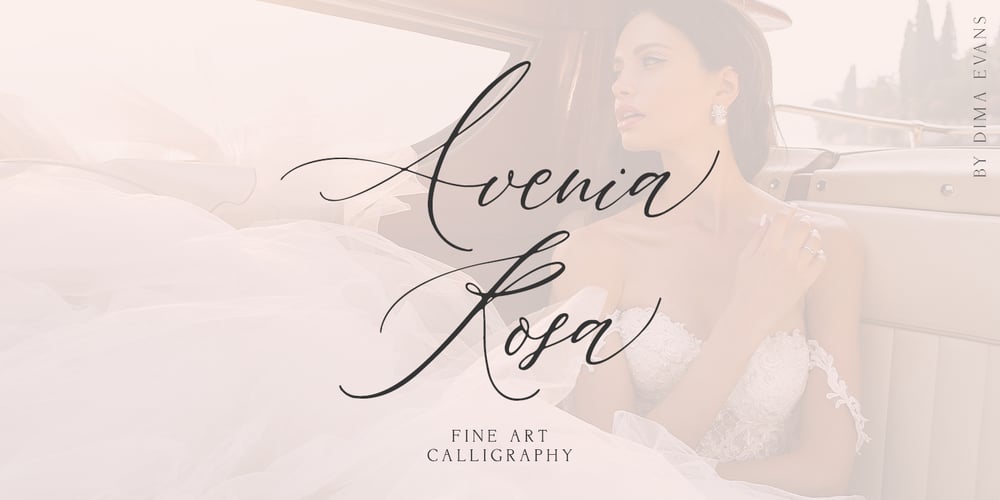
Avenia
Avenia Font Family was designed by Dmitrii Chirkov and published by Supfonts. Avenia contains 1 styles and family package options. Avenia it is a modern calligraphic font with exquisite accents. It is perfect for branding, wedding invitations and invitation cards and many moreFont includes a full set of gorgeous uppercase and lowercase letters, numbers, a large selection of punctuation marks and ligatures.Includes: Regular Script Latin languages support Uppercase and lowercase Numbers and punctuation Ligatures Swashes Check out my blog: https://www.instagram.com/di.zigner pinterest.com/dmitriychirkov7 Enjoy